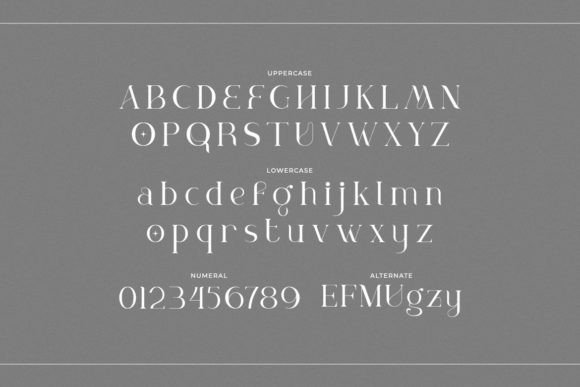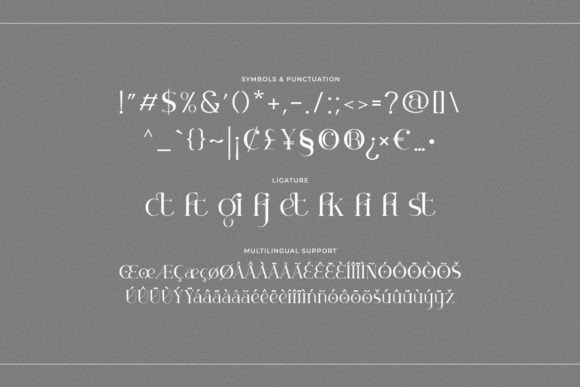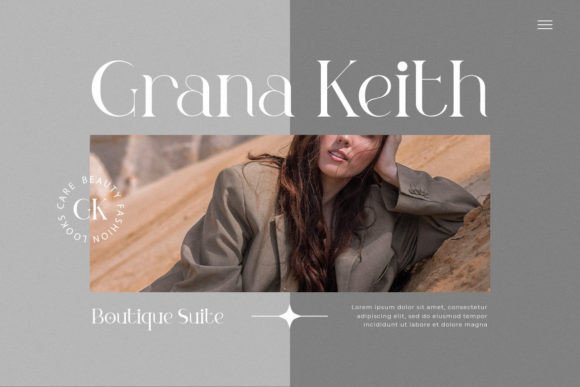
Introduction to Mioge Font
As a designer, there’s nothing quite like the thrill of bringing a creative project to life. You’ve spent hours brainstorming, sketching, and experimenting – and finally, it’s time to bring your vision to the digital world. But what makes all the difference between a good design and a great one? Often, it’s the subtle details that elevate your work from mere functionality to true artistry. For me, that’s where the Mioge Font comes in – a modern and elegant display font that adds an extra layer of sophistication to any design.
Whether you’re working on a high-profile campaign or a personal passion project, the Mioge Font offers unparalleled versatility and style. With its sleek lines and refined aesthetic, it’s the perfect choice for designers looking to add a touch of class to their work. And the best part? It’s available for free download, making it an invaluable resource for any creative project.
As a valuable addition to any design resource, the Mioge Font is sure to take your work to the next level. Its transparent background and high-quality design make it a breeze to work with, even when paired with complex graphics or bold color schemes. So why settle for ordinary when you can achieve extraordinary with the Mioge Font?
Key Features of Mioge Font
- High-quality, professional design suitable for creative projects and designs
- Comes with a transparent background, allowing for easy customization and integration
- Available in a single weight, with a resolution of 300 DPI for high-quality printing
- Designed to be versatile and suitable for a variety of design applications, from logos to typography
Honest Review: Mioge Font
I recently had the chance to work with the Mioge Font, and I have to say, it’s been a game-changer for my creative projects. The font is sleek, modern, and perfect for any design resource that needs a clean and professional look.
One of the things I love about the Mioge Font is its versatility. It works well in a variety of applications, from headings to body text, and its high quality ensures that it looks great even on a transparent background. I’ve used it for everything from logos to brochures, and it’s always delivered.
- ✨ Versatile and easy to use
- ✨ High-quality design that looks great on transparent backgrounds
- ✨ Perfect for creative projects that need a clean and professional look
- ⚠️ Limited font weights and styles available
- ⚠️ Not suitable for very large text sizes
Overall, I’m really impressed with the Mioge Font. It’s a valuable addition to any designer’s toolkit, and I’m excited to see how it continues to evolve. If you’re looking for a high-quality font for your next creative project, I highly recommend giving it a try.
How to Use Mioge Font
The Mioge Font is a high-quality design resource ideal for creative projects. It features a transparent background, making it versatile for various applications.
Tips for Getting the Most Out of Mioge Font
For optimal results, use the Mioge Font on a high-contrast background and adjust the font size accordingly.
The Mioge Font is ideal for various design projects, including:
- Branding and logos
- Marketing materials